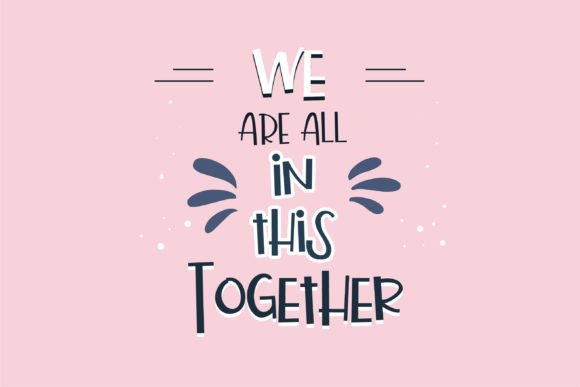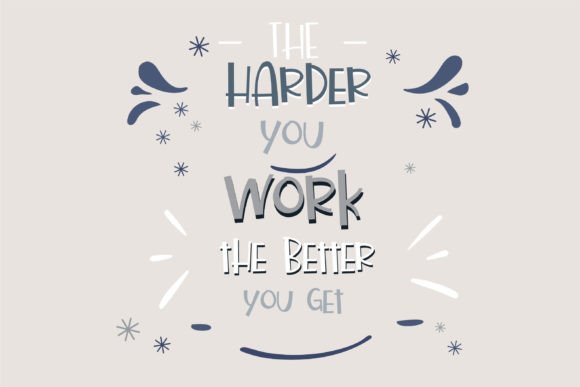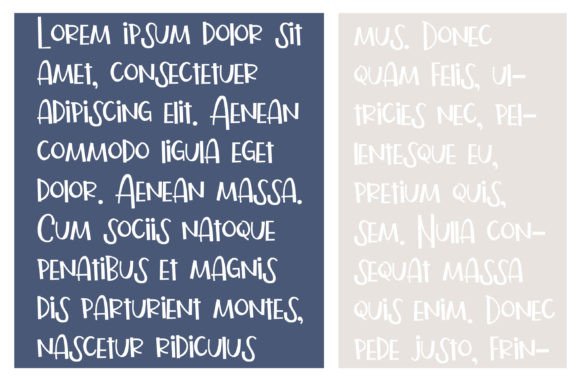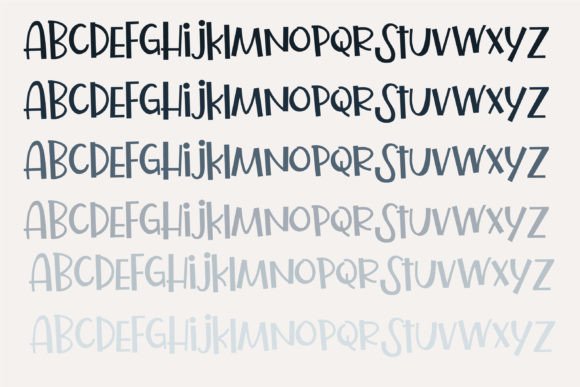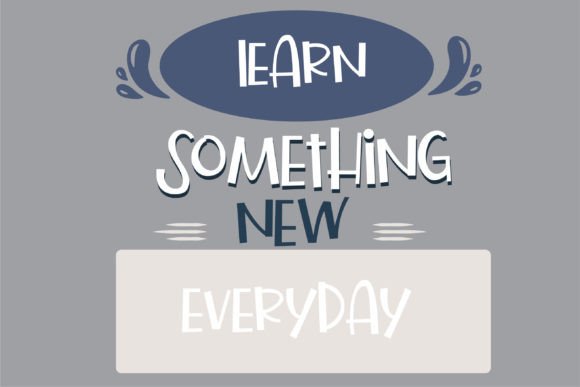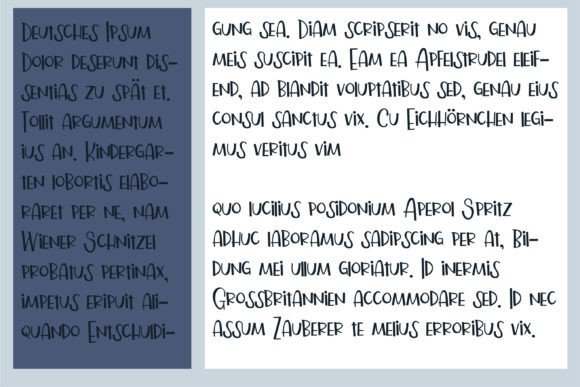
Blimey Font: The Perfect Addition to Your Design Arsenal
Are you a designer or crafter looking for a unique and playful font to elevate your creative projects? Look no further than Blimey Font, a sans serif font that is blocky, silly, and very crafty. With its charming and quirky personality, Blimey Font can beautifully complement your product packaging, personal branding, business cards, storybooks, and other lovely creations.
What Makes Blimey Font So Special?
Blimey Font is a one-of-a-kind font that stands out from the crowd with its distinctive blocky and sans serif design. Its playful and whimsical nature makes it perfect for designers and crafters who want to add a touch of personality to their work. Whether you’re creating a brand identity, designing a product label, or crafting a storybook, Blimey Font is sure to bring a smile to your audience’s faces.
Uses for Blimey Font
Blimey Font is a versatile font that can be used in a variety of creative projects. Here are some ideas to get you started:
- Product Packaging: Add a touch of whimsy to your product packaging with Blimey Font. Whether you’re selling handmade crafts, artisanal foods, or unique gifts, this font is sure to make your products stand out.
- Personal Branding: Use Blimey Font to create a unique and memorable brand identity. From business cards to letterheads, this font is sure to make your brand stand out.
- Storybooks: Bring your storybooks to life with Blimey Font. This font is perfect for children’s books, comics, and graphic novels.
- Business Cards: Make a statement with your business cards using Blimey Font. This font is sure to help you stand out in a crowded industry.
Why Designers and Crafters Love Blimey Font
Designers and crafters love Blimey Font for its unique and playful personality. Here are some reasons why:
- Unique Design: Blimey Font has a distinctive blocky and sans serif design that sets it apart from other fonts.
- Easy to Read: Despite its playful nature, Blimey Font is easy to read and understand, making it perfect for body text and headings.
- Versatile: Blimey Font can be used in a variety of creative projects, from product packaging to storybooks.
- Crafty Feel: Blimey Font has a crafty feel that makes it perfect for handmade and artisanal products.
Tips for Using Blimey Font
Here are some tips for using Blimey Font in your creative projects:
- Use it Sparingly: While Blimey Font is playful and fun, it can be overwhelming if used too much. Use it sparingly to add a touch of personality to your design.
- Pair it with Other Fonts: Blimey Font pairs well with other fonts, such as serif fonts and script fonts. Experiment with different font combinations to find the perfect look for your design.
- Experiment with Colors: Blimey Font looks great in a variety of colors, from bright and bold to pastel and soft. Experiment with different colors to find the perfect look for your design.
Blimey Font is a unique and playful font that is perfect for designers and crafters who want to add a touch of personality to their creative projects. With its distinctive blocky and sans serif design, Blimey Font is sure to bring a smile to your audience’s faces. Whether you’re creating product packaging, personal branding, business cards, storybooks, or other lovely creations, Blimey Font is the perfect addition to your design arsenal.